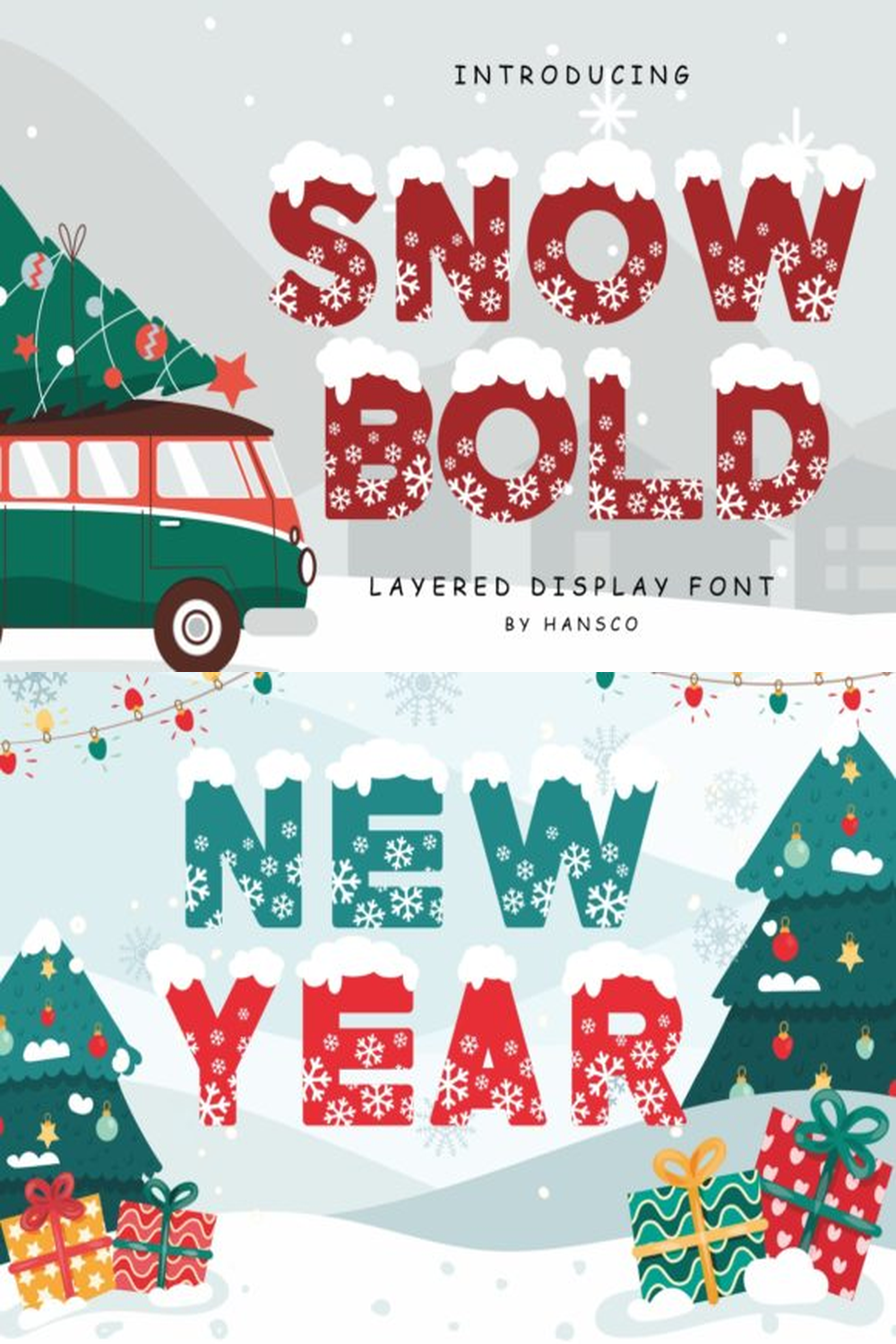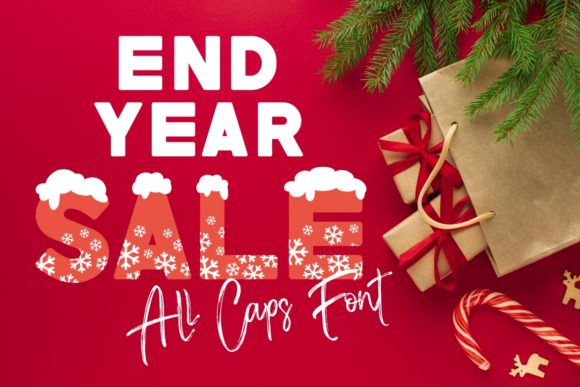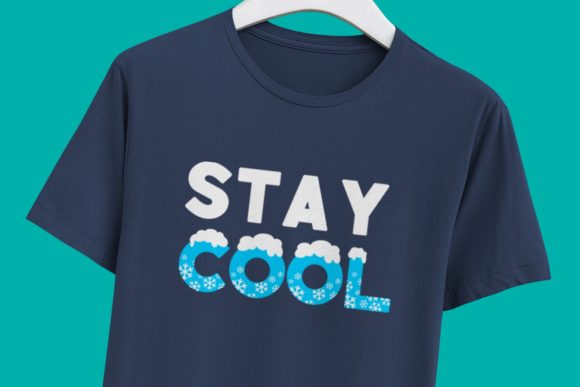
Snow Bold Font
About the Snow Bold Font
The wait is over! The incredible Snow Bold Font is now available for your design toolkit. Snow Bold is a cute and incredibly unique display font. it is ideal for each of your winter or holiday designs. Add it confidently to your projects, and you won’t be disappointed.
Snow Bold Font Usage Examples